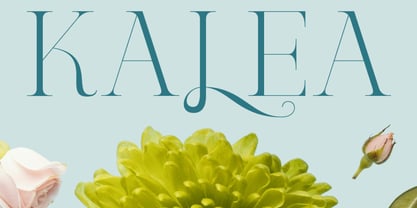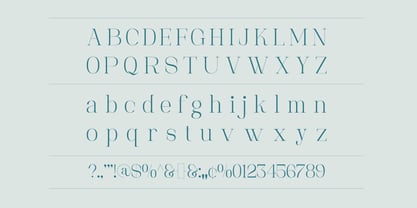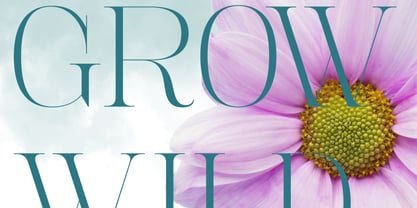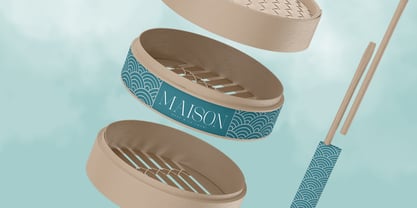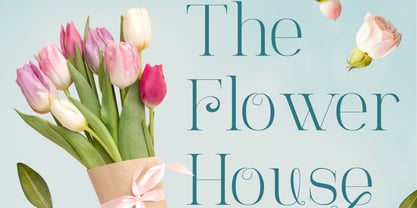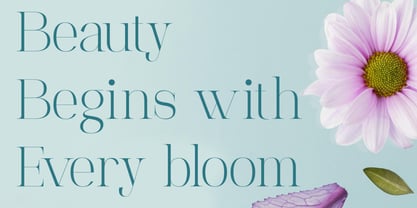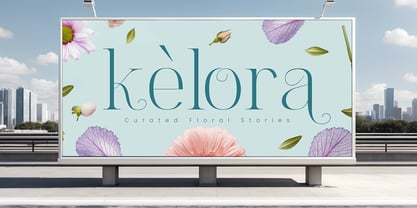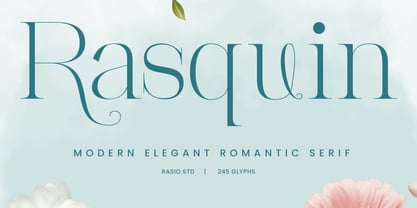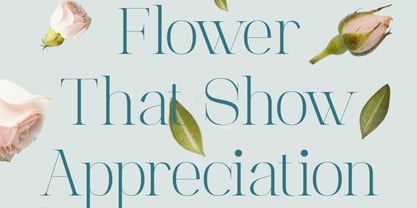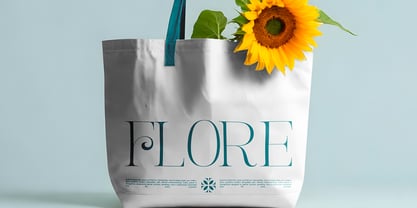
Rasquin
by Rasio Studio
Rasquin is a modern elegant romantic serif typeface that combines graceful curves, refined contrast, and delicate decorative details to create a sophisticated visual identity. Designed with fashion-inspired proportions and subtle ornamental flourishes, each character delivers a luxurious appearance while maintaining excellent clarity and balance. Its elegant personality allows typography to become the focal point of any composition, making it ideal for projects that require both timeless charm and contemporary refinement.
Relevance and Use Case is perfect for luxury branding, fashion labels, beauty products, cosmetic packaging, jewelry collections, perfume brands, wedding invitations, editorial magazines, boutique businesses, lifestyle branding, book covers, premium logos, restaurant identities, social media campaigns, and sophisticated marketing materials.